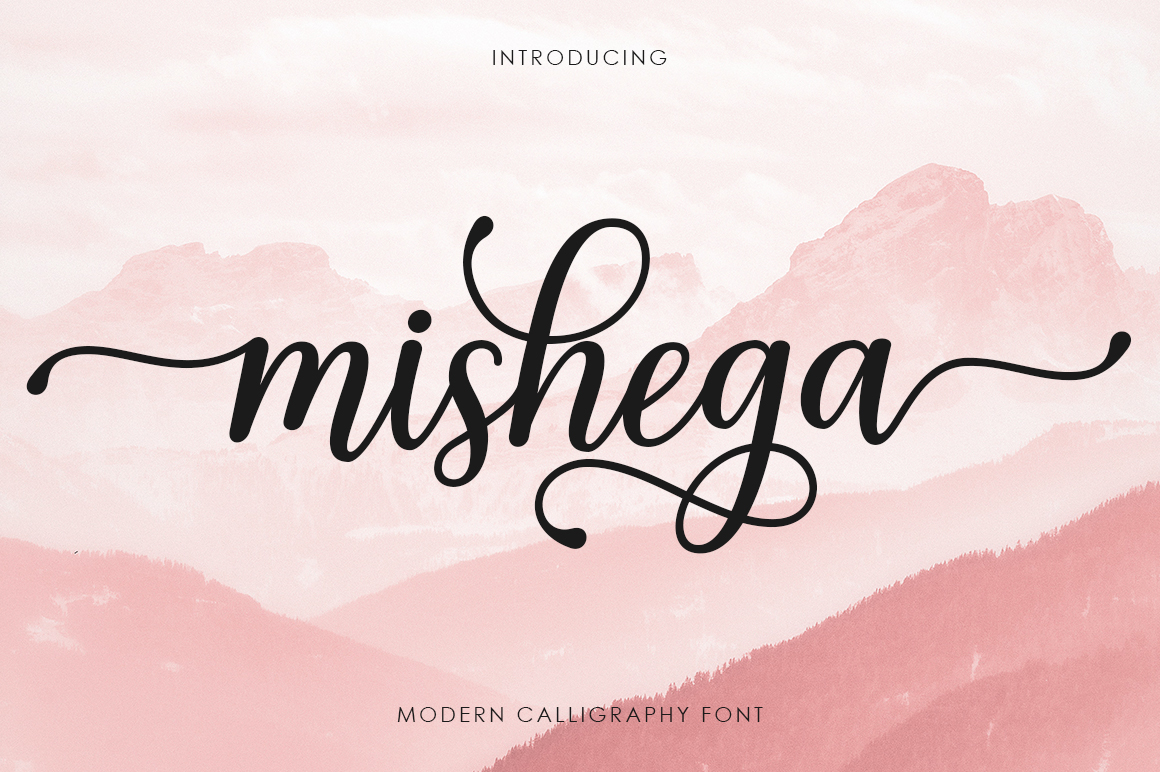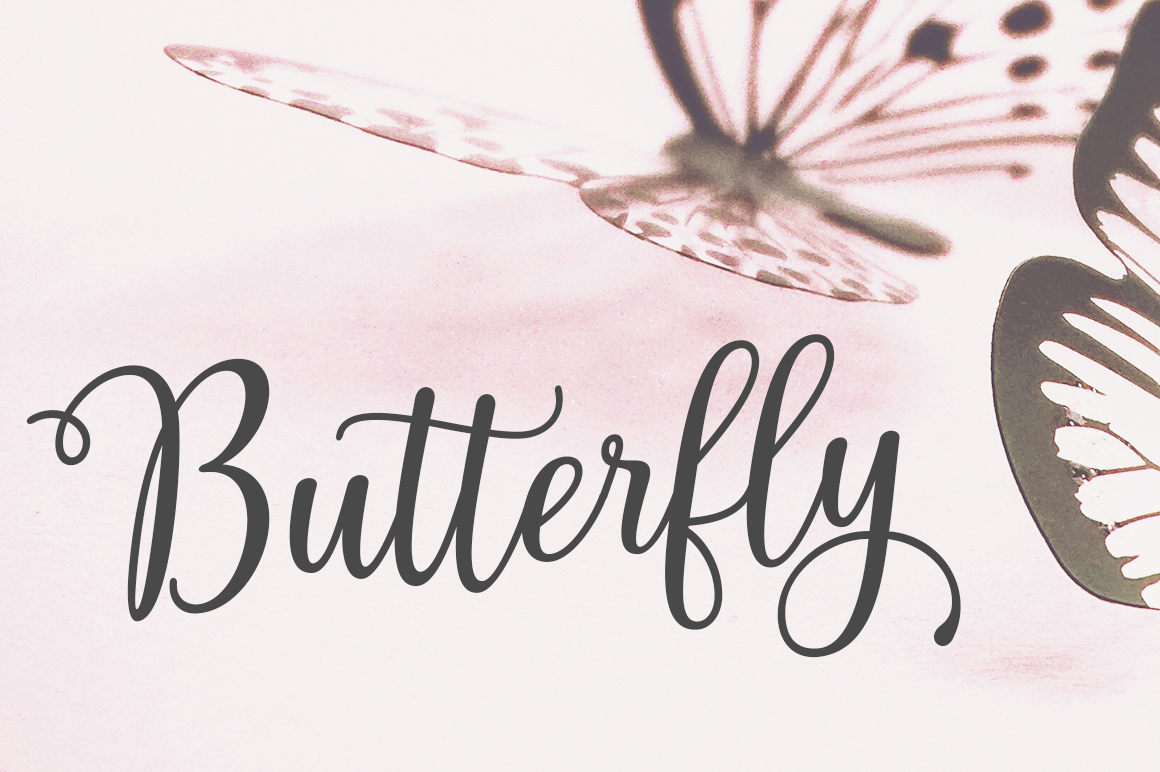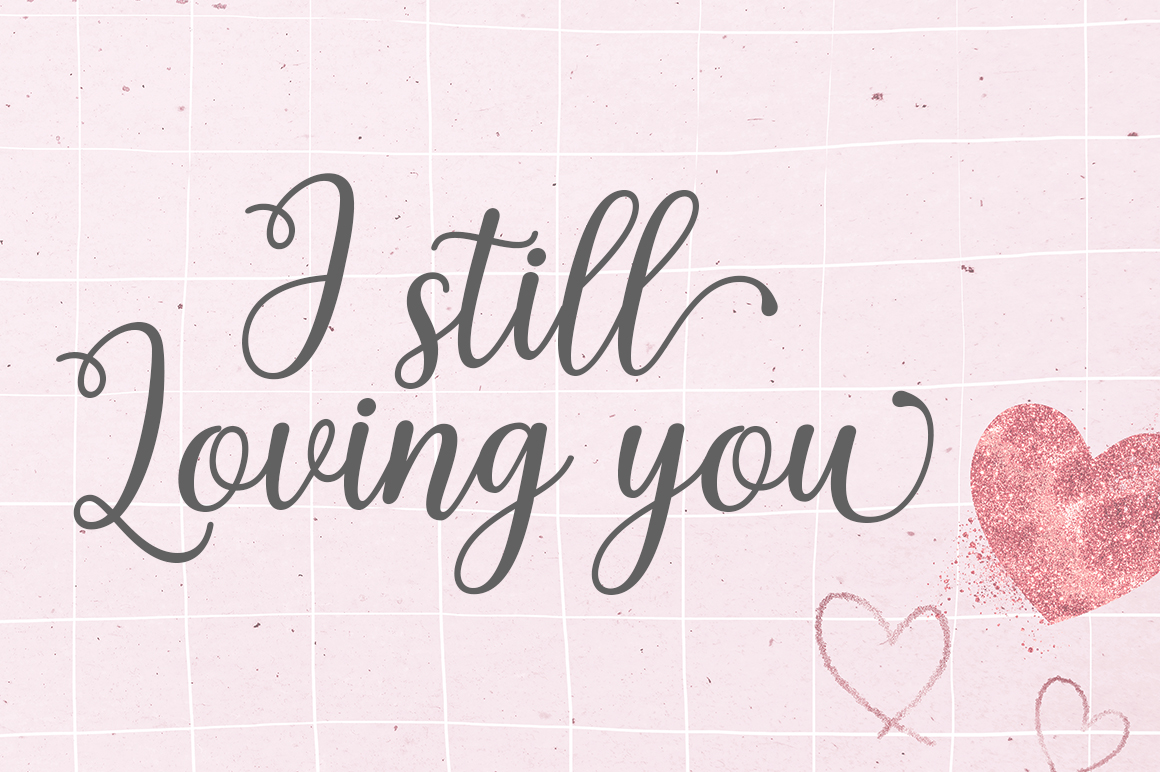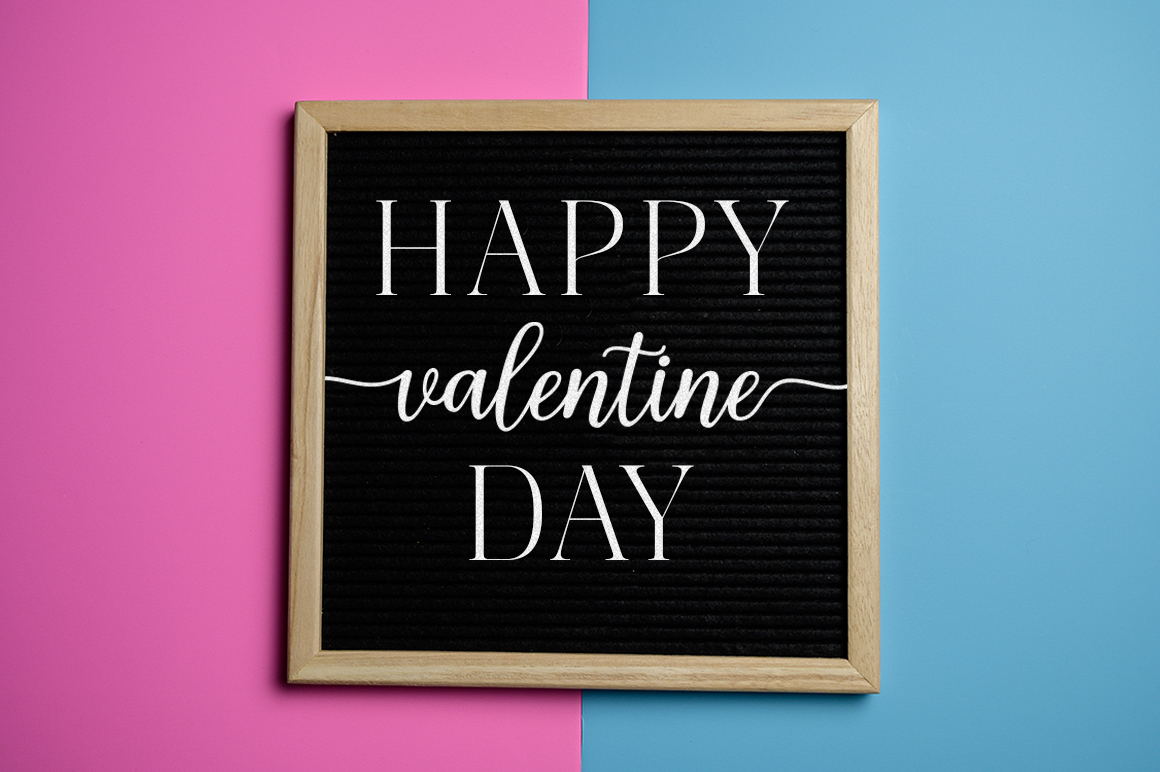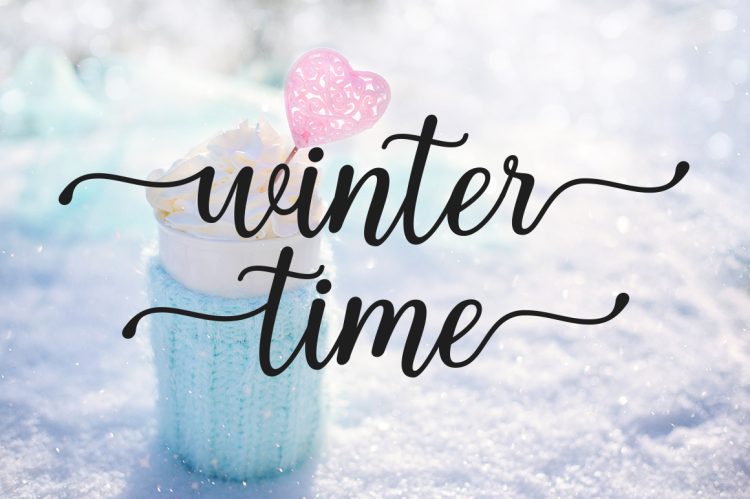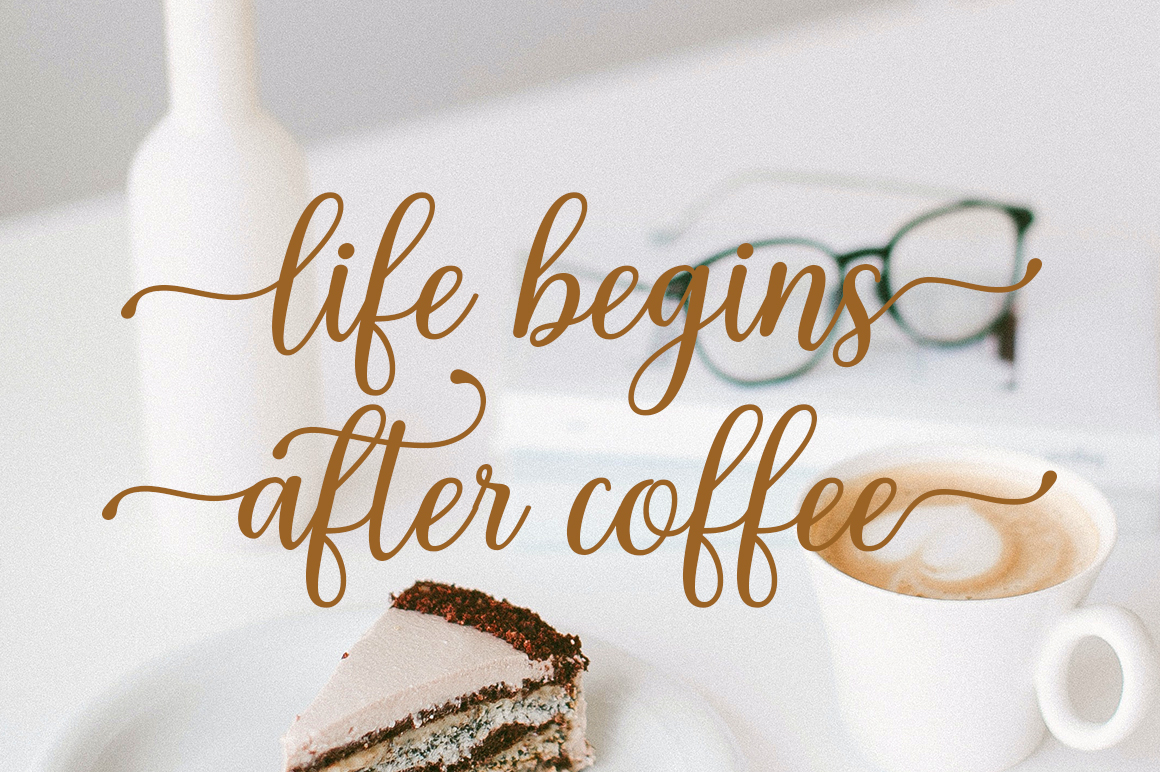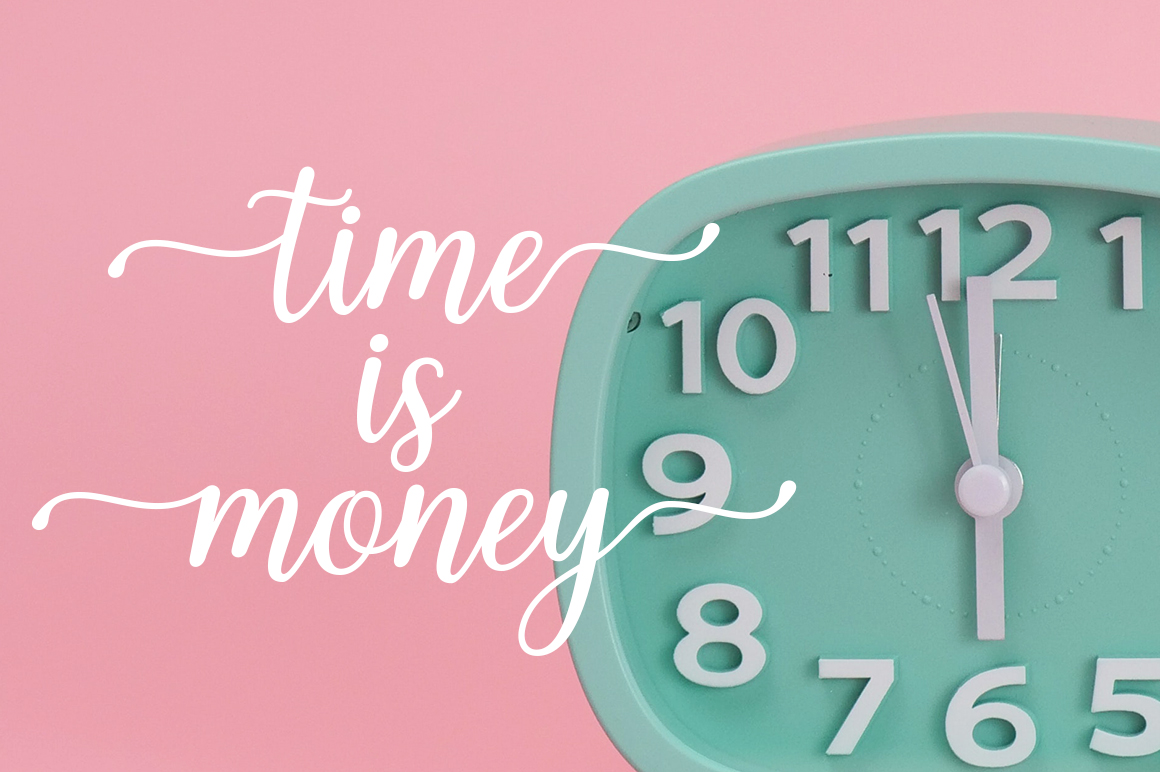
Mishega Script is modern calligraphy font, including Regular. This font is casual and pretty with swashes. Can used for various purposes. such as logo, product packaging, wedding invitations, branding, headlines, signage, labels, signature, book covers, posters, quotes and more.
Feature:
· All Uppercase and Lowercase
· Alternates and Ligatures
· Numbers & Symbols
· Substitutes and Binders